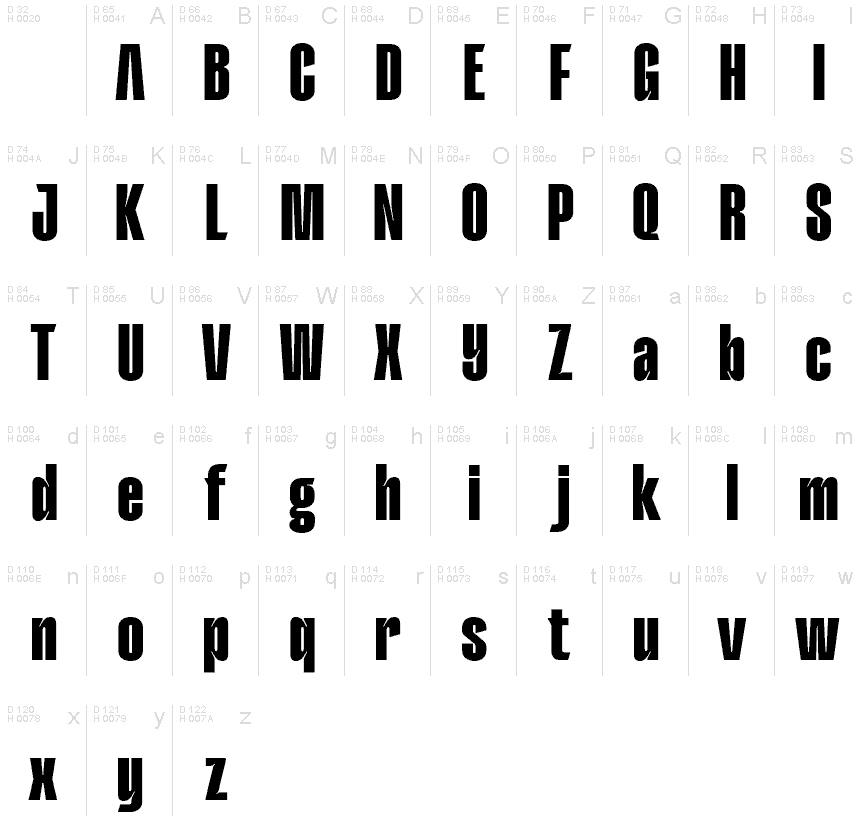
CS Cedar Regular Demo
CS Cedar font by Craft Supply Co. is a condensed sans serif font with vintage charm and a strong presence. Its geometric influence and historical references to mid-century modern styles give it a unique, timeless appeal. The font's rounded features convey elegance and professionalism, allowing designers to showcase their ideas in an appealing manner.
The free font can be used in branding designs that require a retro touch, or even as headlines in print and digital media. More uses would include social media covers, greeting card designs, book covers, invitations, apparel designs, titles for posters and flyers – as well as video thumbnails or brochures.